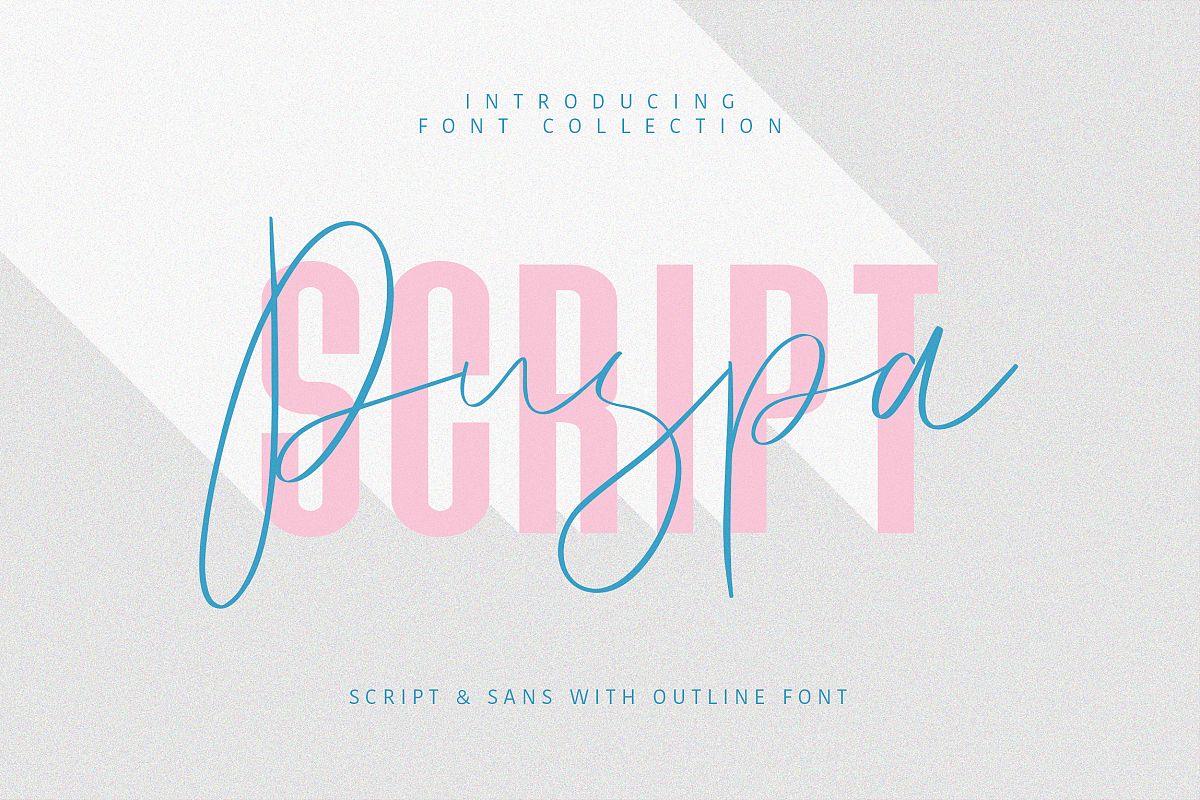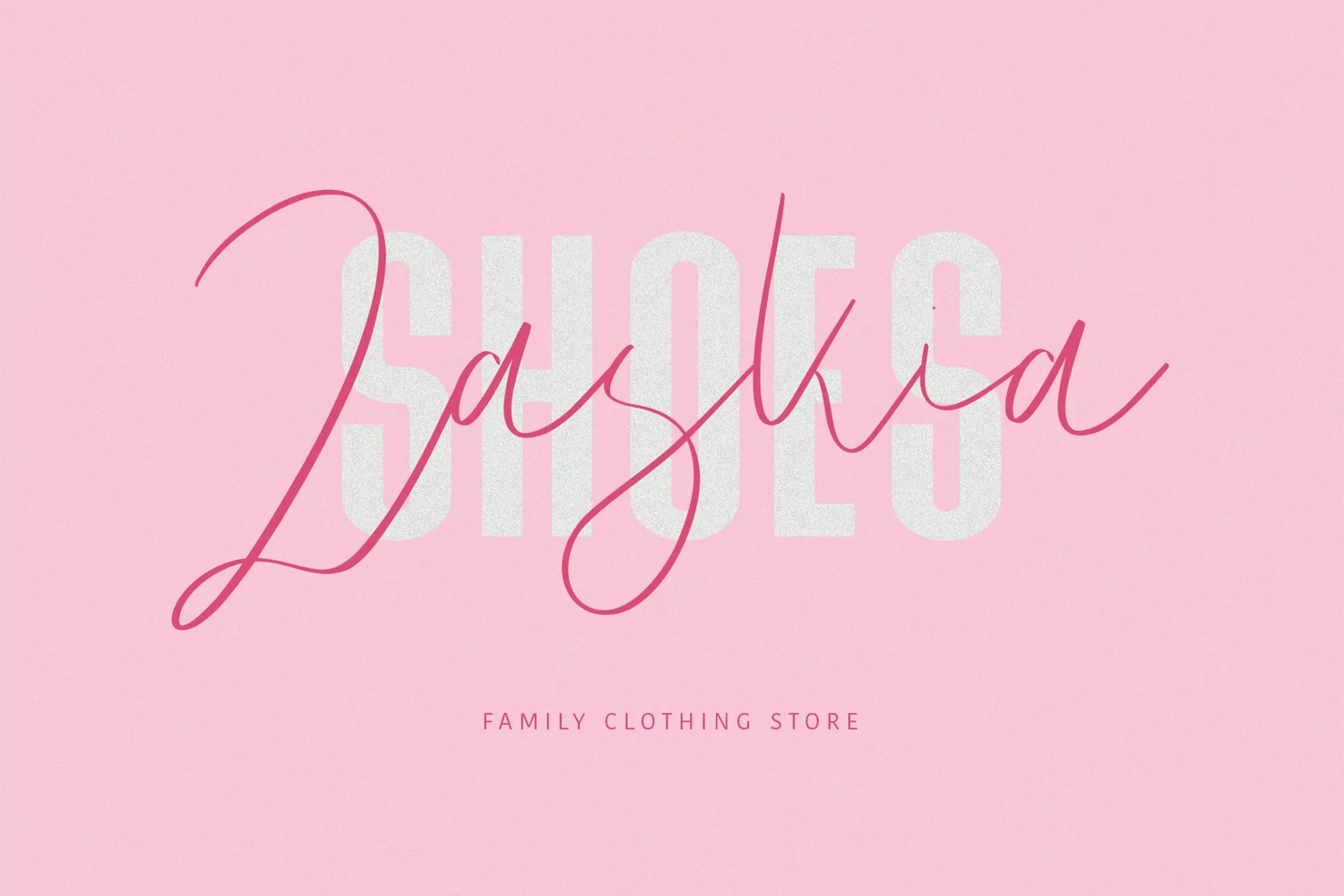
Give your designs an authentic handcrafted feel. "Puspa Script Sans Font" is perfectly suited to signature, stationery, logo, typography quotes, magazine or book cover, website header, clothing, branding, packaging design and more.License: This font included for personal, commercial use, multiple projects, behalf of a client. Fonts may be printed on to products that are subsequently sold, websites and within website design. Graphics may be printed on to products that are subsequently sold when an effort is made to use them as part of a new design including a variation of other graphics or fonts.Font Available:
- Puspa Script
- Puspa Sans
- Puspa Sans Outline